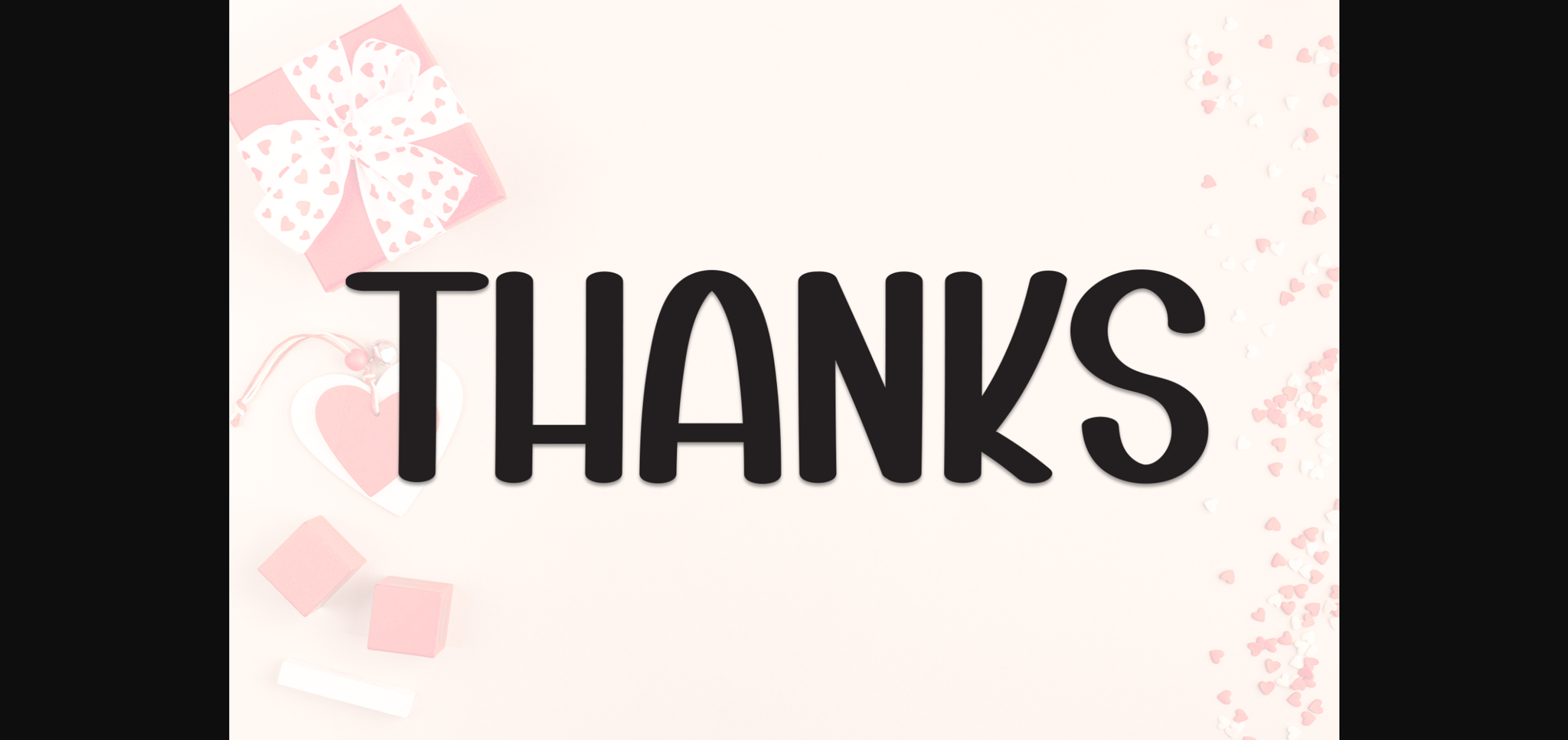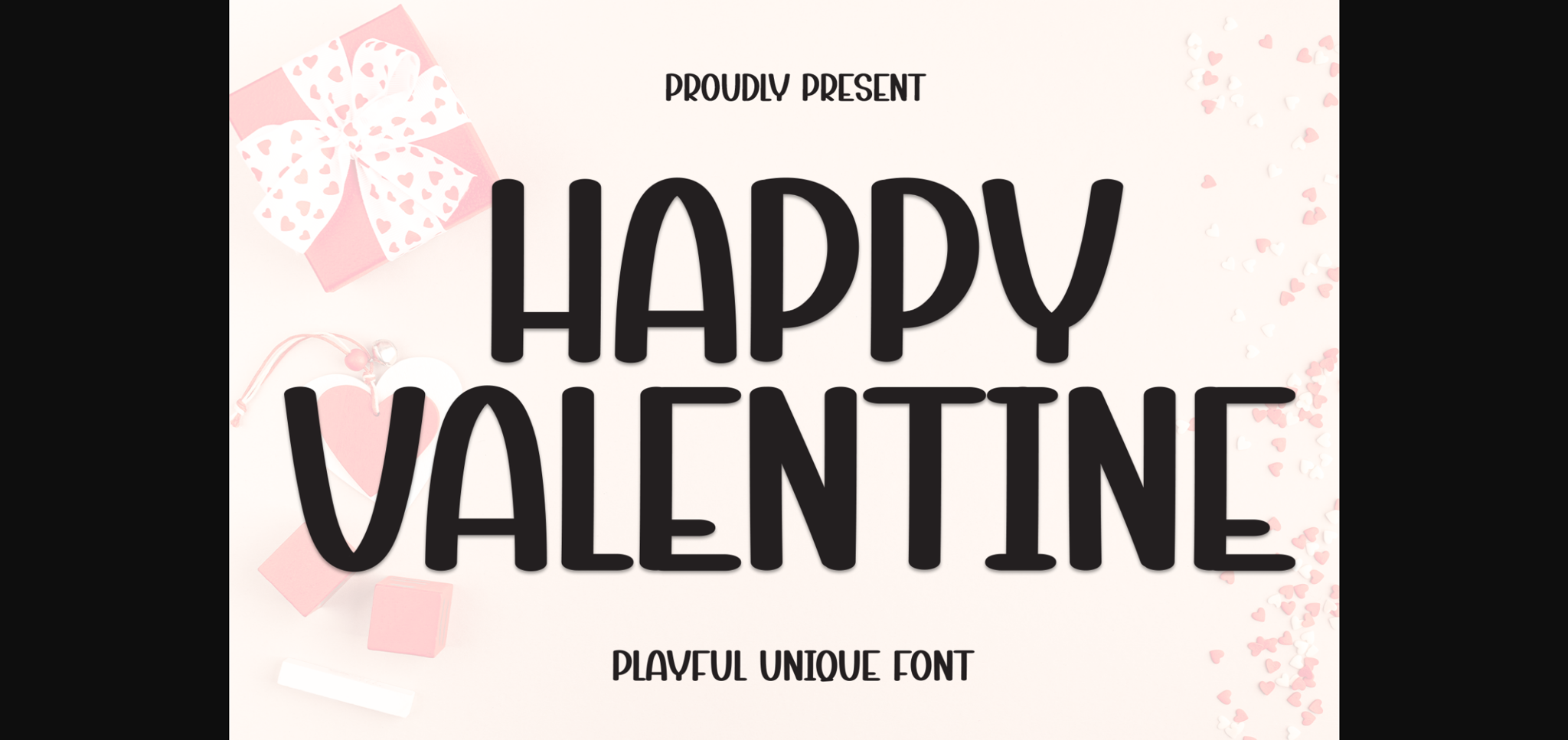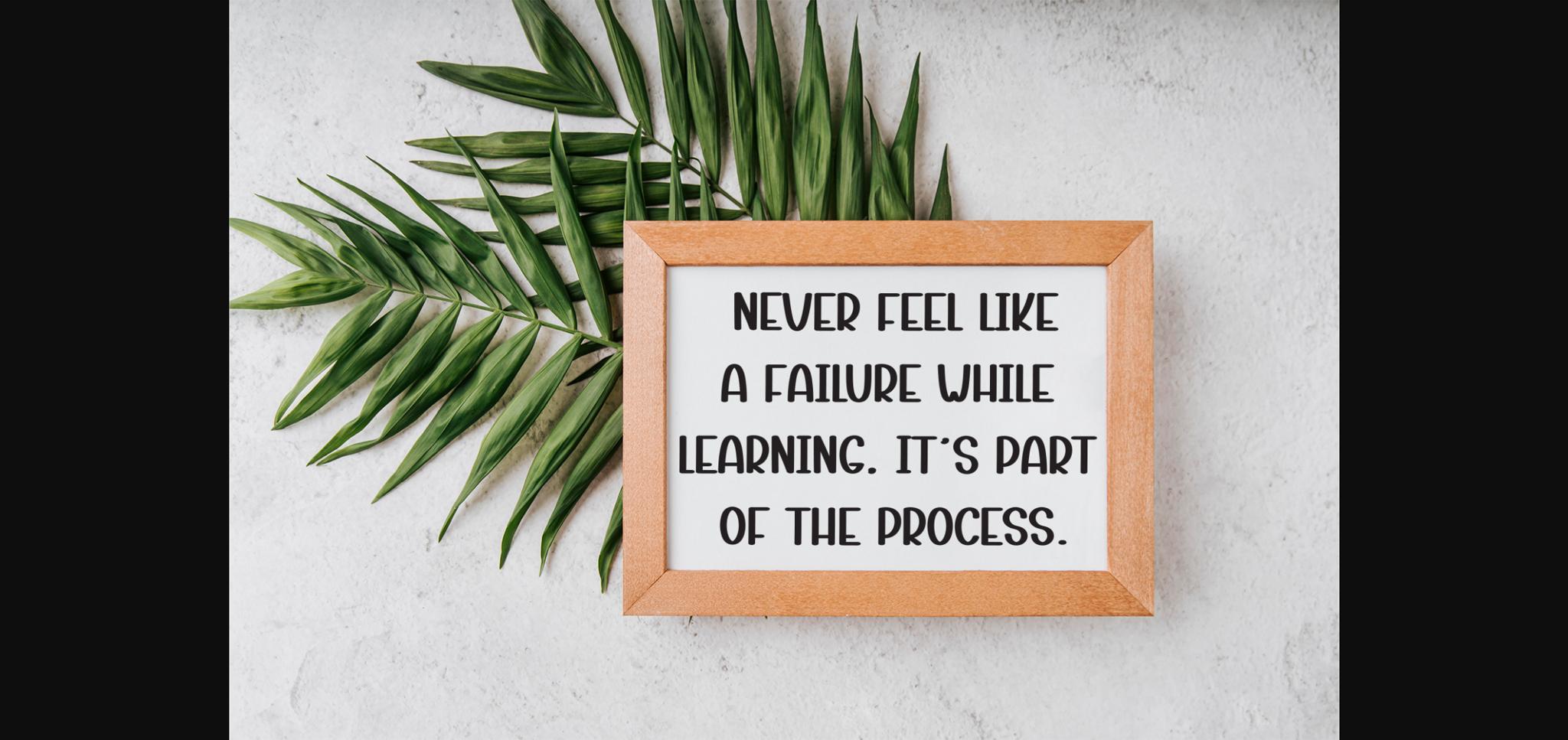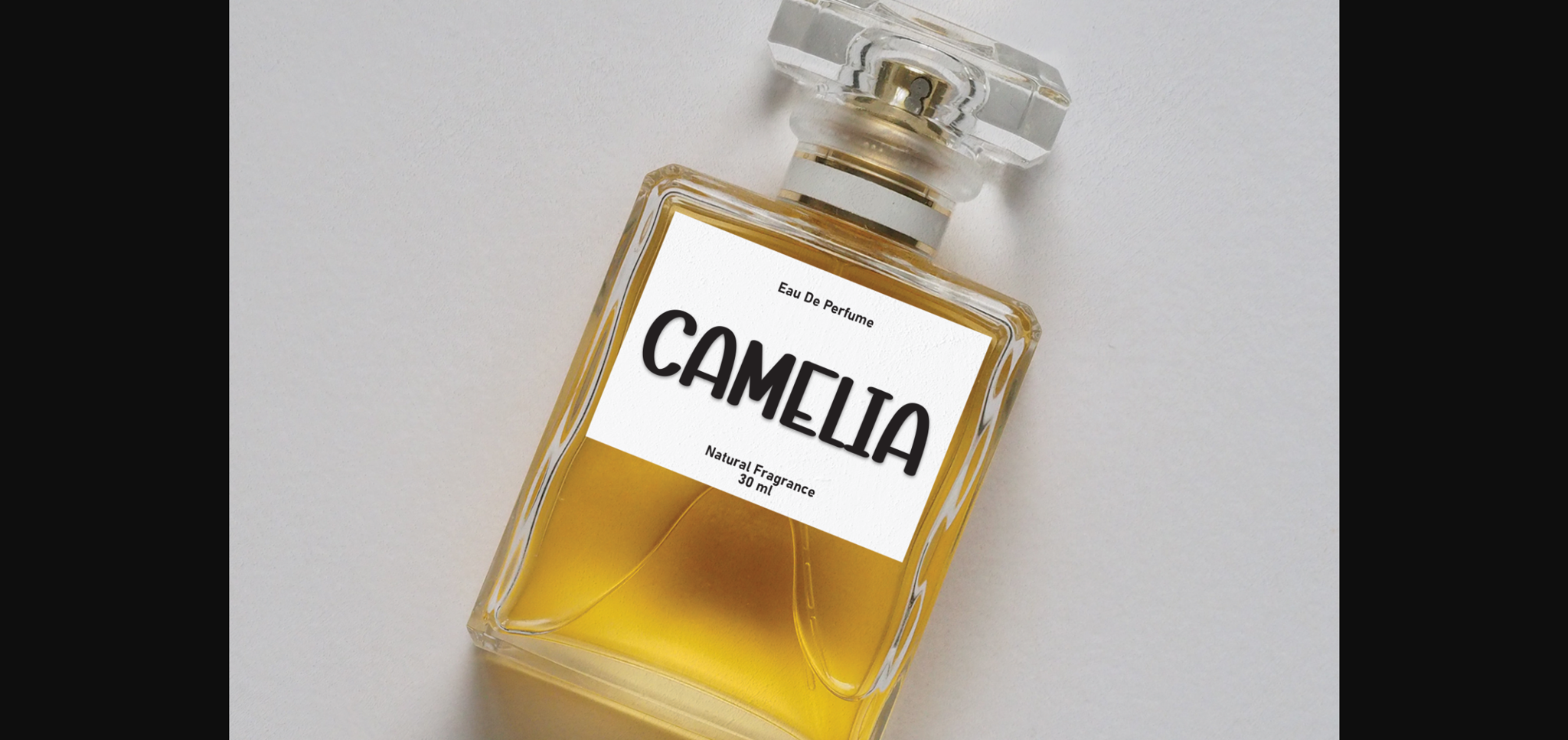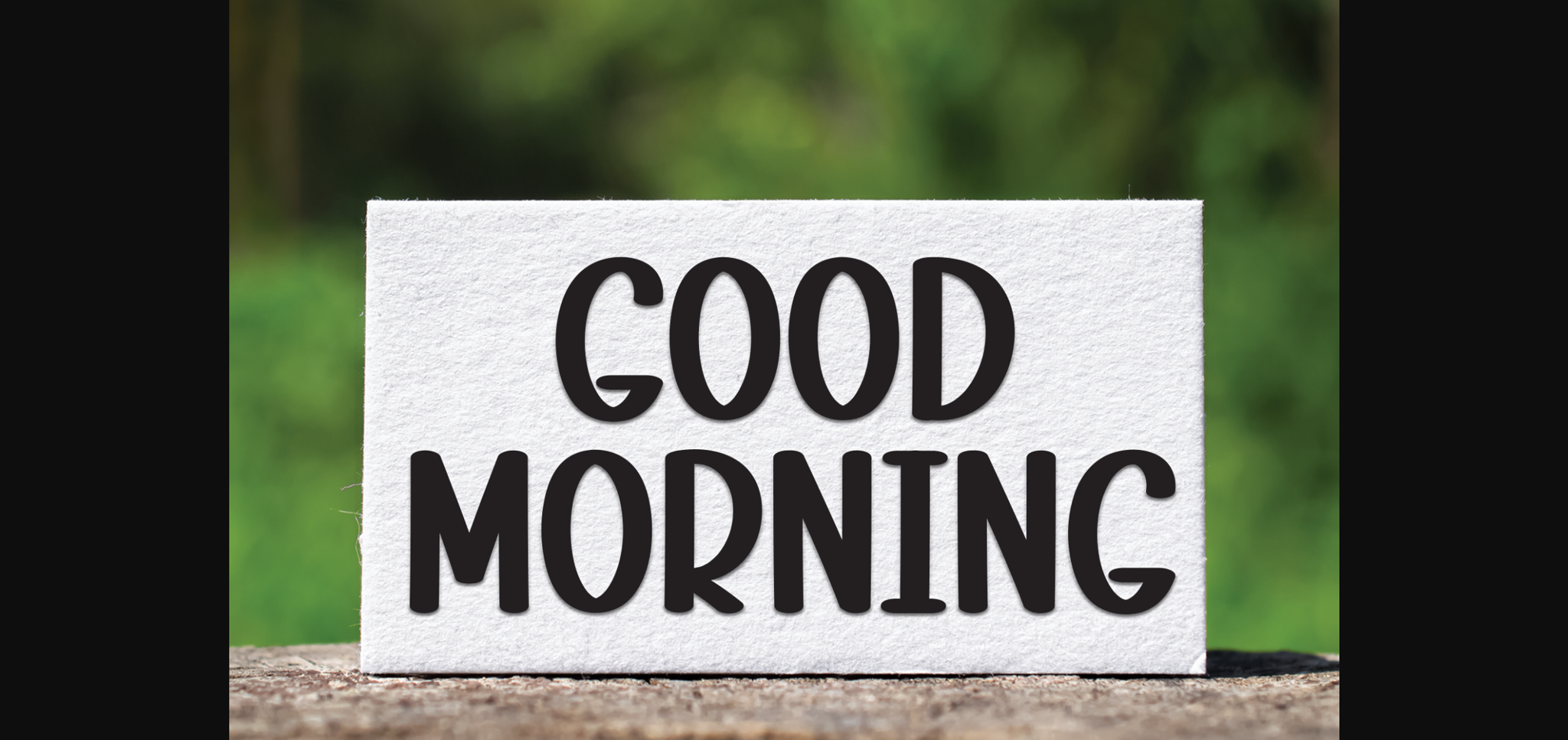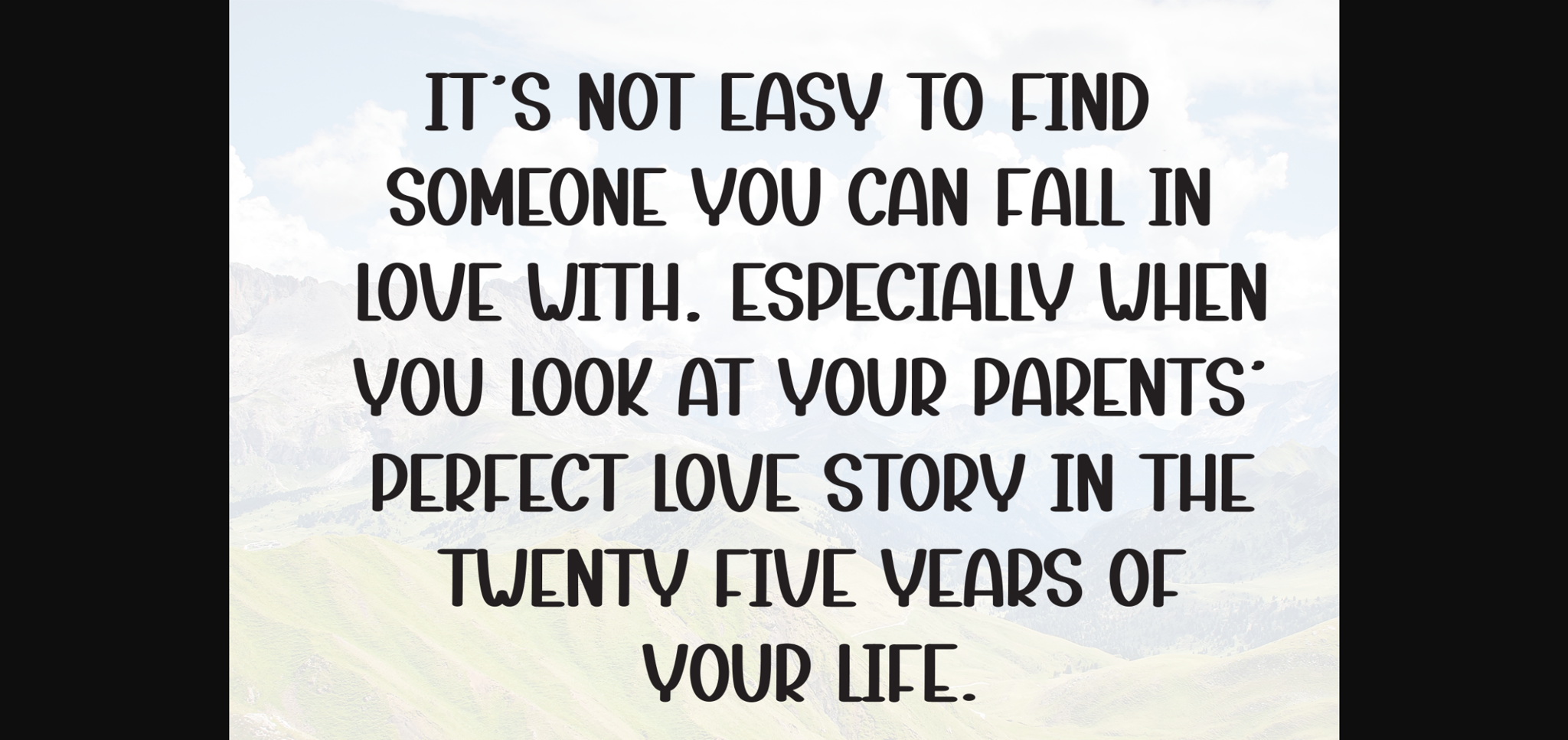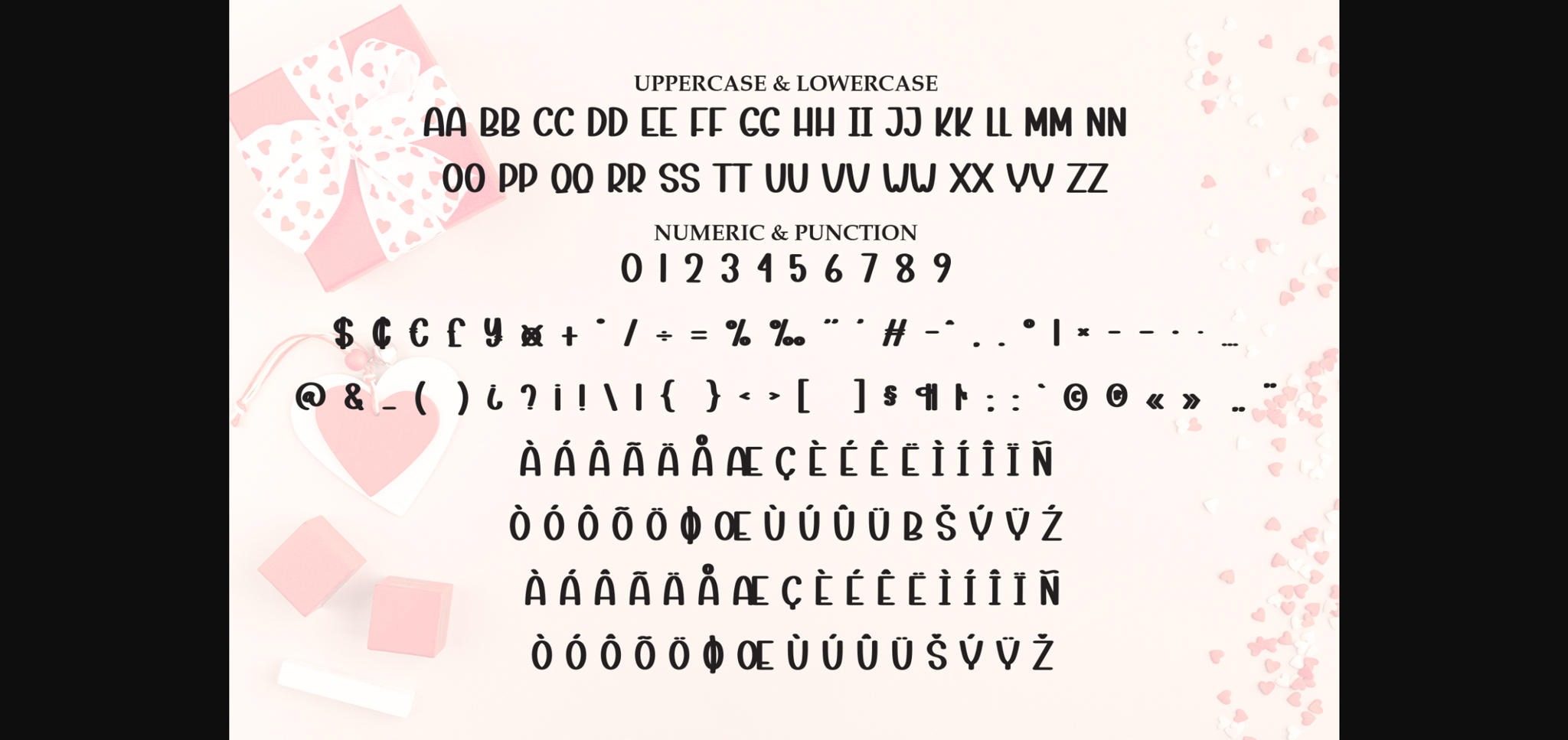
Happy Valentine Font
About Happy Valentine Font
Happy Valentine is a sweet and friendly sans serif font. Cute and versatile, this font is ideal for writing wedding invitations, cards, or any other design that might need a fun touch!